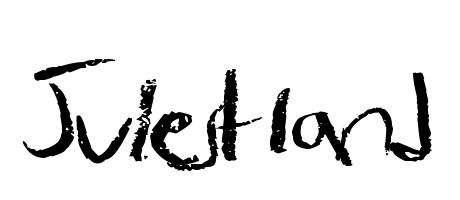
JulesHand
JulesHand, a whimsical script font, dances across the page with carefree abandon. Its uneven strokes and playful curves evoke a sense of handcrafted charm, perfect for adding a touch of personality to invitations, quotes, or whimsical logos. It''s a font brimming with character, hinting at a spirited, artistic hand behind its creation.